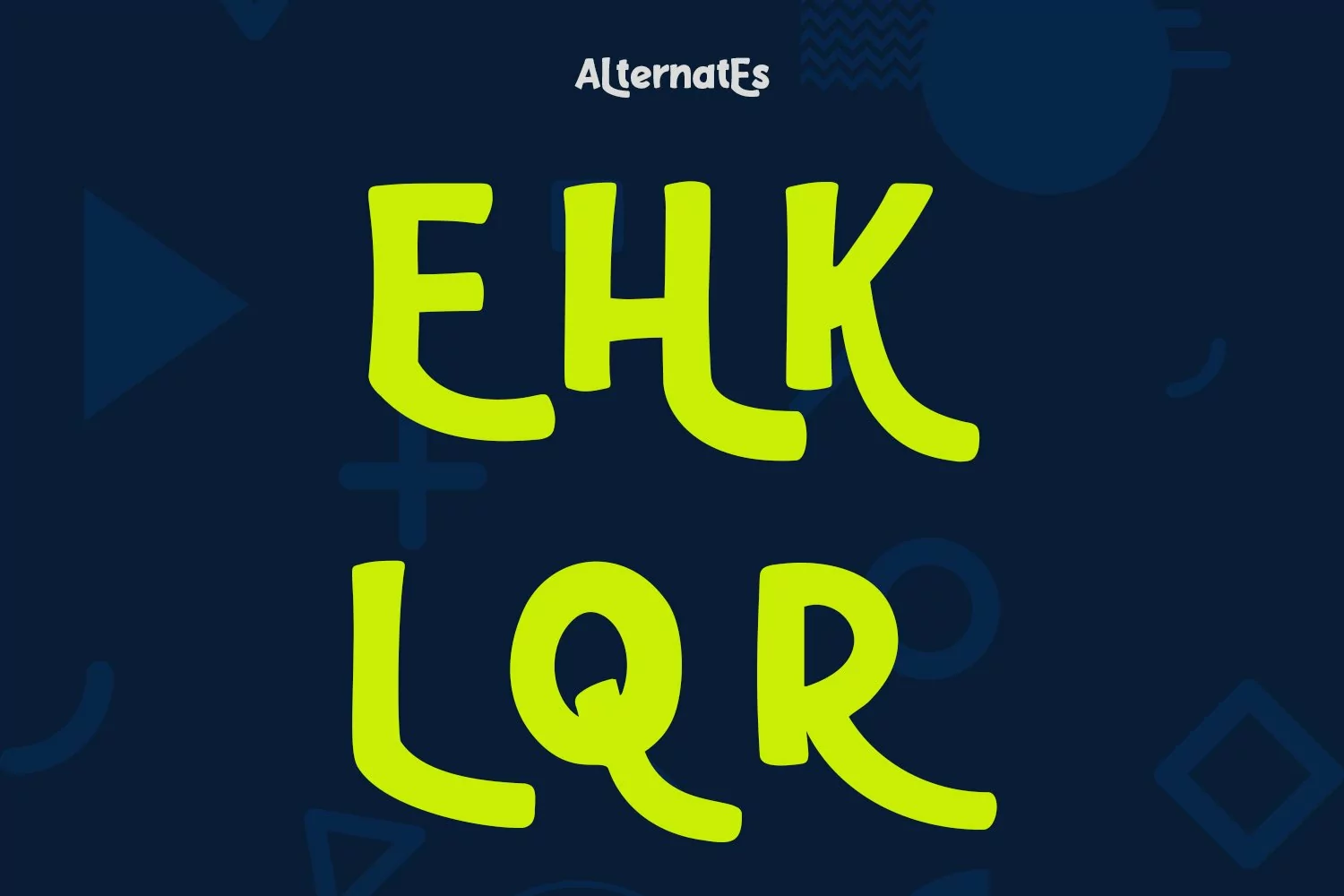
Ragrots is a cartoon-is handwritten display font. With bold bounce stroke, fun character with a bit of alternates. To give you an extra creative work. Ragrots font support multilingual more than 100+ language. This font is good for logo design, Social media, Movie Titles, Books Titles, a short text even a long text letter and good for your secondary text font with sans or serif. Make a stunning work with Ragrots font.